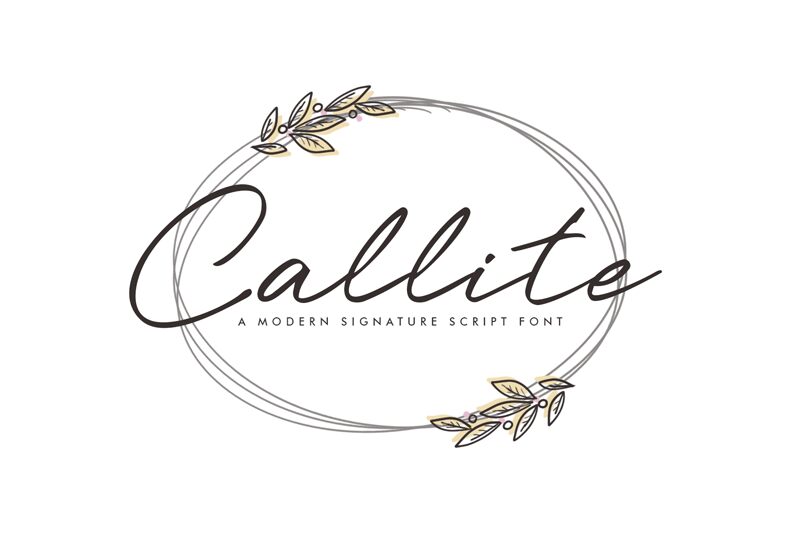
Callite
Callite, a captivating handwritten font crafted by Khurasan, exudes an effortless elegance and charm. Its light, signature-inspired strokes lend a sense of artistry and personality to any design. The fluid, organic lines convey a sense of warmth and approachability, making it an alluring choice for branding, editorial layouts, and personal correspondence.
This versatile font adapts seamlessly to diverse design contexts, from modern stationery and packaging to rustic wedding suites and heartfelt greeting cards. Callite's distinctive character and versatility make it a compelling option for designers seeking to infuse their projects with a touch of refined, handcrafted personality.